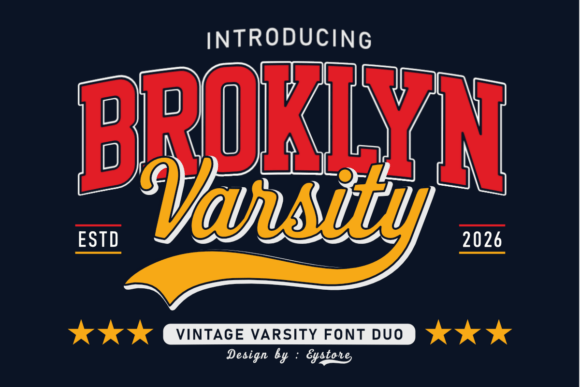
The Ultimate Design Home Run: Brooklyn Varsity Font
I still remember the design project that made me fall in love with the Brooklyn Varsity font. I was working on a vintage-inspired sports jersey design for a client, and I was struggling to find the perfect font combination that would capture the classic American athletic aesthetic. That’s when I stumbled upon Brooklyn Varsity, a font duo that instantly hit a design home run!
A Perfect Mid-Century Collegiate Aesthetic
Brooklyn Varsity brings together a heavy, western-style slab serif and a fluid, retro script layout, giving you the ultimate baseline toolkit to replicate iconic American athletic graphics instantly. The primary display font delivers strong, blocky shapes engineered with crisp slab serifs and a structured contour outline. When paired with the sweeping tail, lively rhythm, and layered 3D depth of the accompanying script typography, it captures a perfect mid-century collegiate aesthetic.
- ✅ The perfect combination of a heavy slab serif and a fluid script font
- ✅ Crisp and clean design that’s perfect for high-energy graphics
- ✅ Easy to use and pair with other fonts
- ✅ Versatile and suitable for various design projects, from team sports jerseys to vintage campus apparel
- 🤔 Some users may find the font a bit too bold for certain design projects
The Brooklyn Varsity font was inspired by the classic American athletic aesthetic of the mid-20th century. The font’s designers wanted to create a font duo that would capture the energy and nostalgia of vintage sports jerseys, posters, and advertisements. The result is a font that’s perfect for designers who want to add a touch of retro charm to their work.
| Font Name | Broklyn Varsity Font |
| Author | Eystore |
| What is the best way to use Brooklyn Varsity? | Brooklyn Varsity is perfect for designing team sports jerseys, vintage campus apparel, varsity-style logos, streetwear branding, and nostalgic retro poster layouts. |
| Is Brooklyn Varsity suitable for digital use? | Yes, Brooklyn Varsity is optimized for both print and digital use, making it perfect for a wide range of design projects. |
| Is Brooklyn Varsity easy to read? | Yes, Brooklyn Varsity is designed to be highly legible, even at smaller font sizes. |